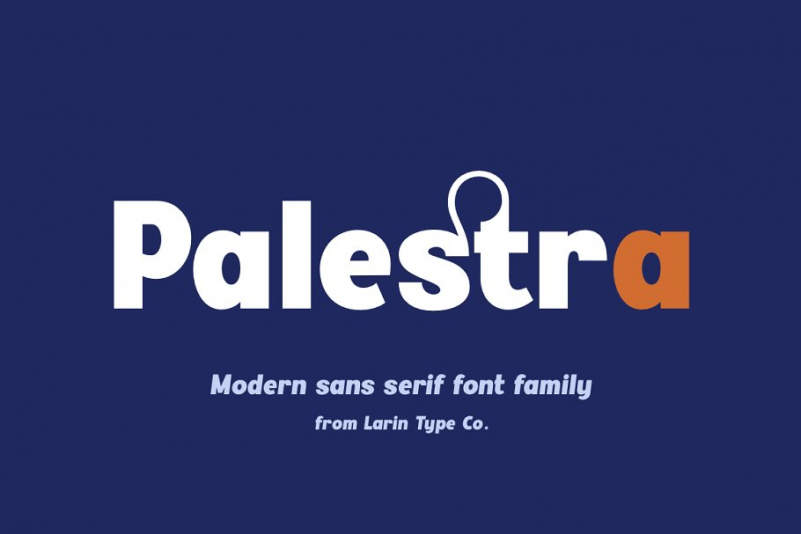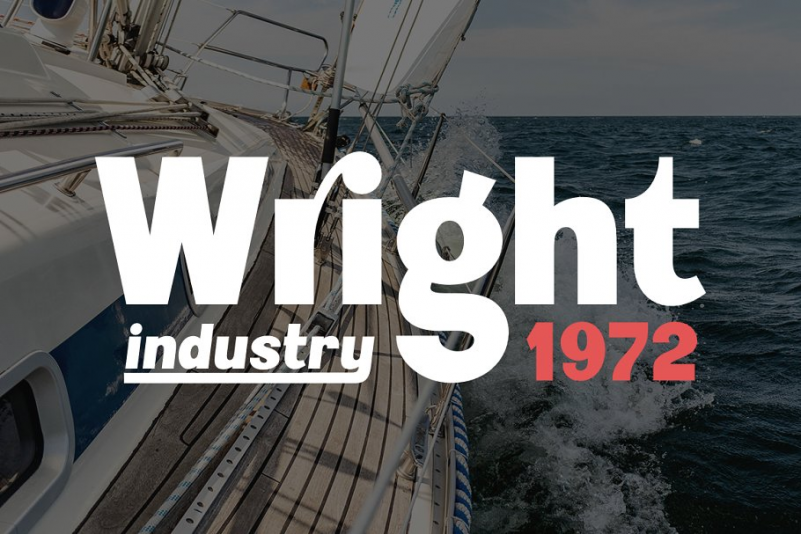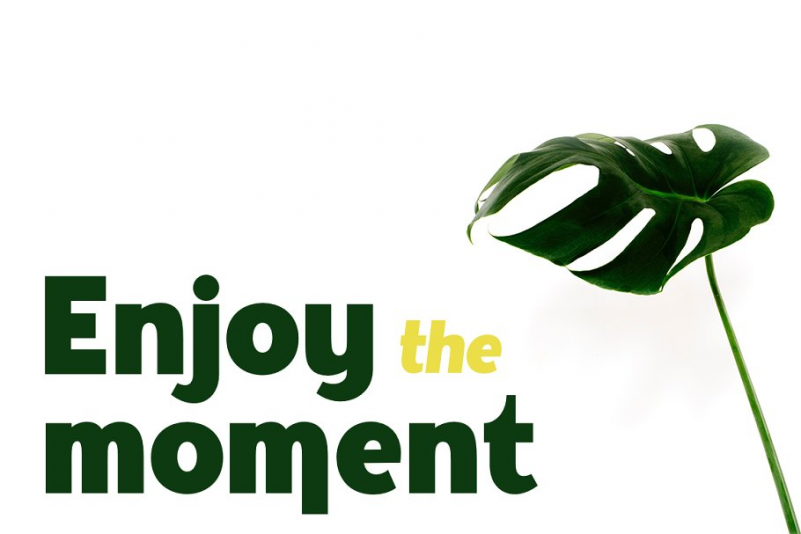
Palestra Font
Palestra – a modern sans serif font in four style : Regular, Italic, Bold and Bold italic. In this font, I can see many alternatives for the lowercase and most common ligatures that fit perfectly with this font style. This font can look more classic without serifs and more expressive with alternative substitutes, try to play with them and you will get the uniqueness in your project. All characters in this font are PUA-encoded.